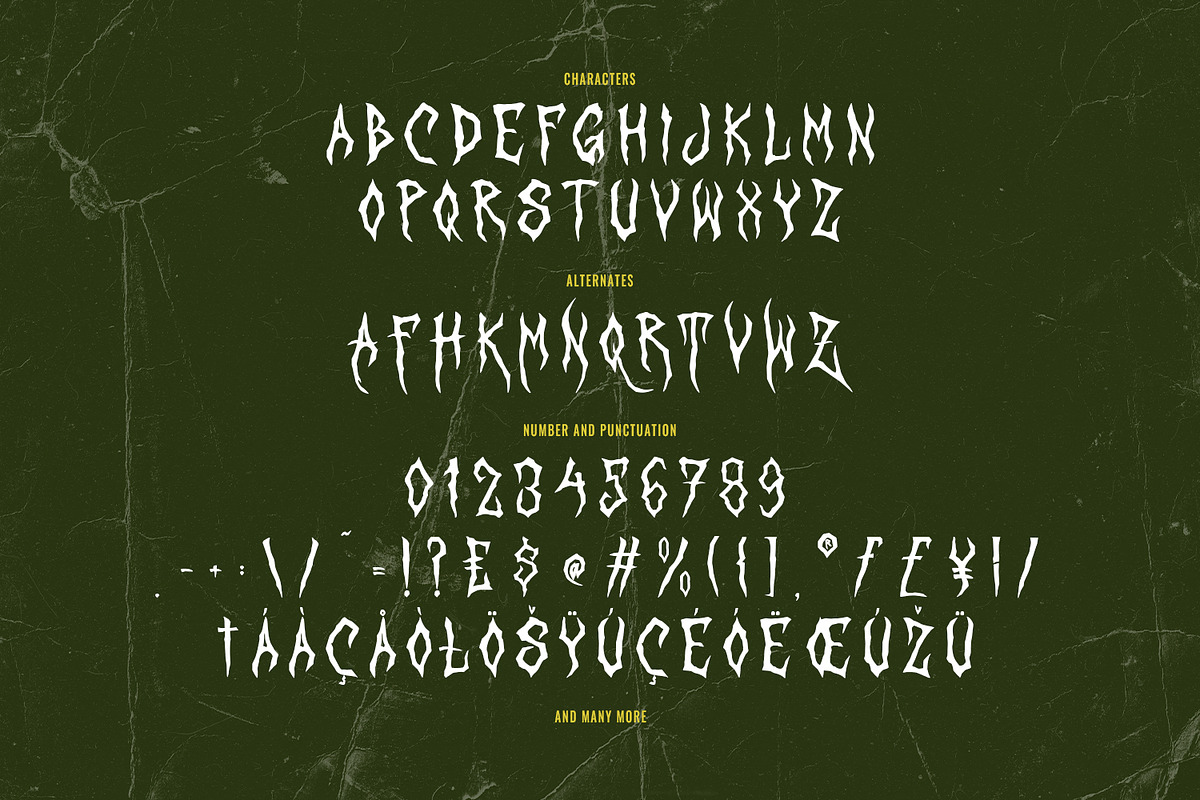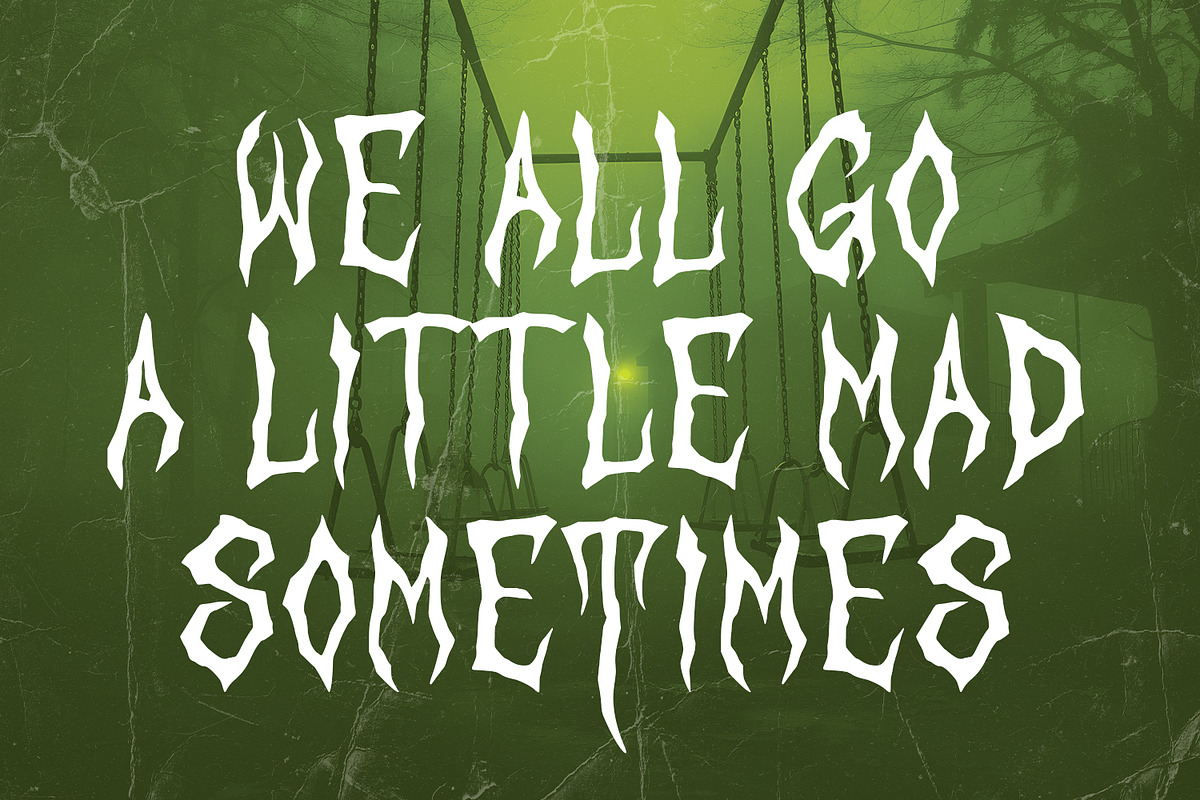
Frakhaz Sharp Metal Horror Display
Unleash the darkness with Frakhaz, an aggressive and razor-sharp display font designed for projects that need to scream. Inspired by the raw energy of underground Heavy Metal culture and the chilling aesthetics of classic horror movies, Frakhaz features jagged, thorn-like strokes that give every word a lethal edge.
Whether you are designing a death metal band logo, a spine-tingling horror movie poster, or edgy streetwear apparel, this font provides the perfect balance of chaos and legibility. Its hand-drawn, visceral feel ensures your branding stands out with a brutal, authentic personality.
- Sharp & Aggressive Aesthetic: Perfect for high-impact titles.
- Stylistic Alternates: Includes unique character variations to give your typography a custom, hand-lettered look.
- Comprehensive Set: Full uppercase alphabet, numbers, punctuation, and multilingual support.
- Versatile Use: Ideal for album covers, gaming titles, Halloween promotions, merchandise, and social media branding.
- Stylistic Alternates for a natural look
Level up your design game and embrace the brutal side of typography with Frakhaz!